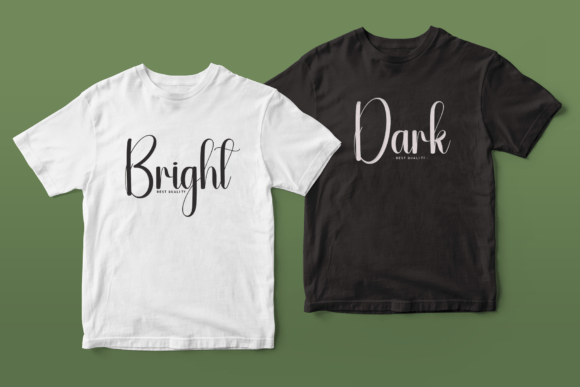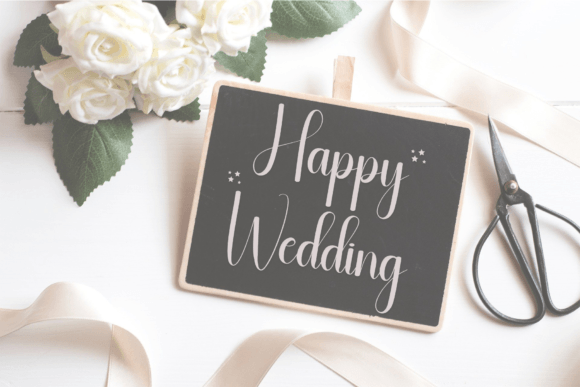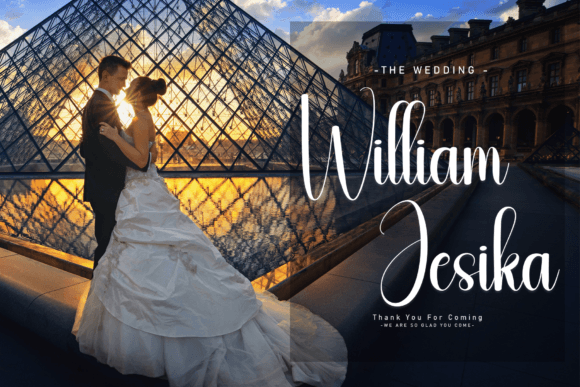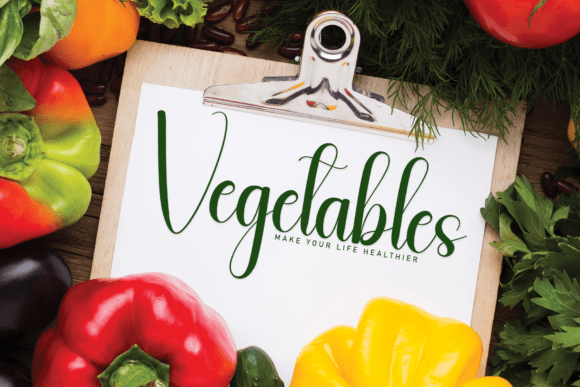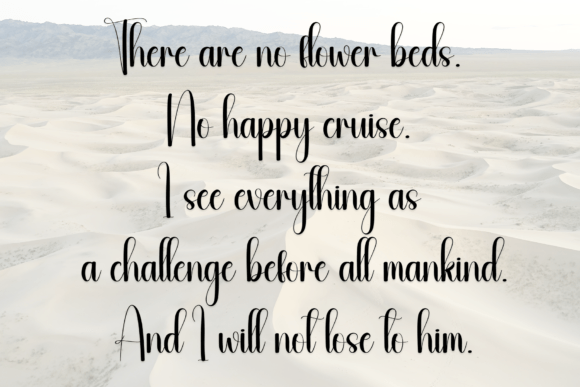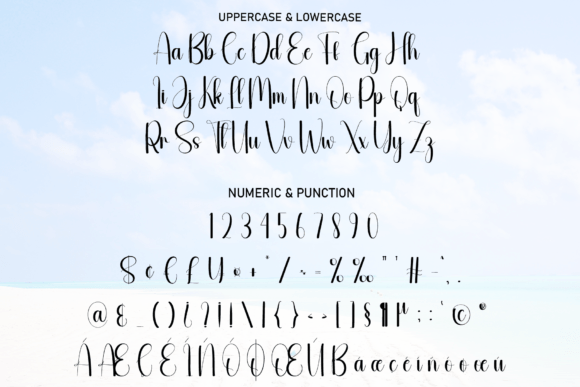
Discover the Sweet and Friendly Clouds Font: Elevate Your Designs with a Fresh and Fun Touch
Are you tired of using the same old fonts in your designs? Look no further! Introducing Clouds Font, a sweet and friendly handwritten font that’s perfect for adding a fun touch to your projects. In this article, we’ll dive into the world of Clouds Font, exploring its features, benefits, and uses. Whether you’re a designer, crafter, or DIY enthusiast, you’ll love what this charming font has to offer.
What is Clouds Font?
Clouds Font is a beautiful, handwritten font that’s fresh, neat, and full of personality. Its sweet and friendly vibe makes it an ideal choice for a variety of design projects, from wedding invitations and cards to social media graphics and more. With its clean lines and playful feel, Clouds Font is sure to capture the hearts of your audience and leave a lasting impression.
Key Features of Clouds Font
- Handwritten style: Clouds Font boasts a lovely, handwritten style that’s perfect for adding a personal touch to your designs.
- Fresh and neat: The font’s clean lines and fresh feel make it perfect for a wide range of design projects.
- Sweet and friendly: Clouds Font exudes a warm and welcoming vibe, making it ideal for designs that require a friendly tone.
- Highly versatile: Use Clouds Font for wedding invitations, cards, social media graphics, and more – the possibilities are endless!
Benefits of Using Clouds Font
So, why choose Clouds Font for your designs? Here are just a few benefits of using this lovely font:
- Adds a personal touch: Clouds Font’s handwritten style adds a personal touch to your designs, making them feel more approachable and relatable.
- Evokes emotions: The font’s sweet and friendly vibe can evoke feelings of joy, happiness, and warmth in your audience.
- Enhances creativity: Clouds Font’s unique style can inspire creativity and help your designs stand out from the crowd.
- Easy to read: The font’s clean lines and neat appearance make it easy to read, even at smaller sizes.
Uses for Clouds Font
Clouds Font is an incredibly versatile font that can be used for a wide range of design projects. Here are some ideas to get you started:
- Wedding invitations: Clouds Font is perfect for wedding invitations, adding a romantic and whimsical touch to your designs.
- Cards and stationery: Use Clouds Font to create beautiful cards, stationery, and other paper crafts.
- Social media graphics: Add a fun touch to your social media graphics, such as Facebook posts, Instagram stories, and more.
- DIY projects: Clouds Font is perfect for DIY projects, such as crafting, scrapbooking, and more.
Tips for Using Clouds Font
Here are some tips for getting the most out of Clouds Font:
- Pair with other fonts: Experiment with pairing Clouds Font with other fonts to create a unique and eye-catching combination.
- Use colors wisely: Choose colors that complement the font’s sweet and friendly vibe, such as pastels, brights, and whites.
- Experiment with sizes: Clouds Font looks great at a variety of sizes, from small and delicate to large and bold.